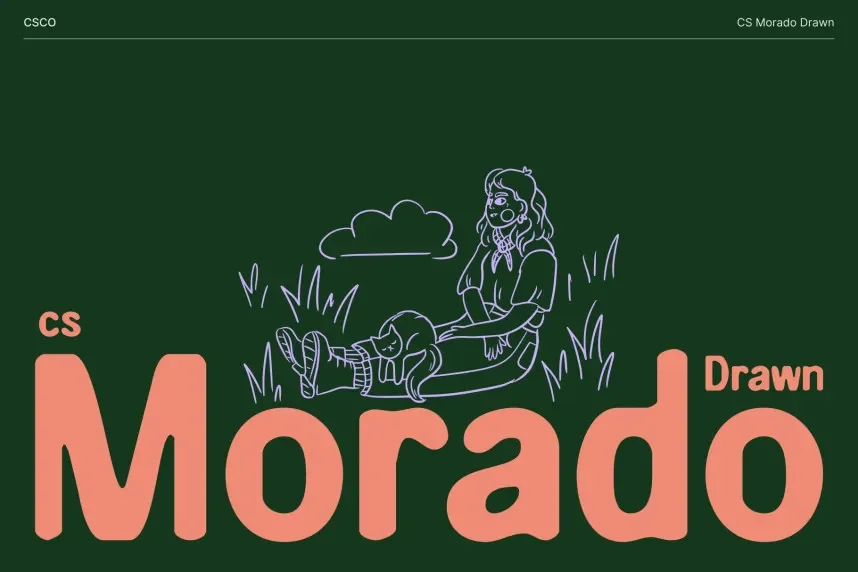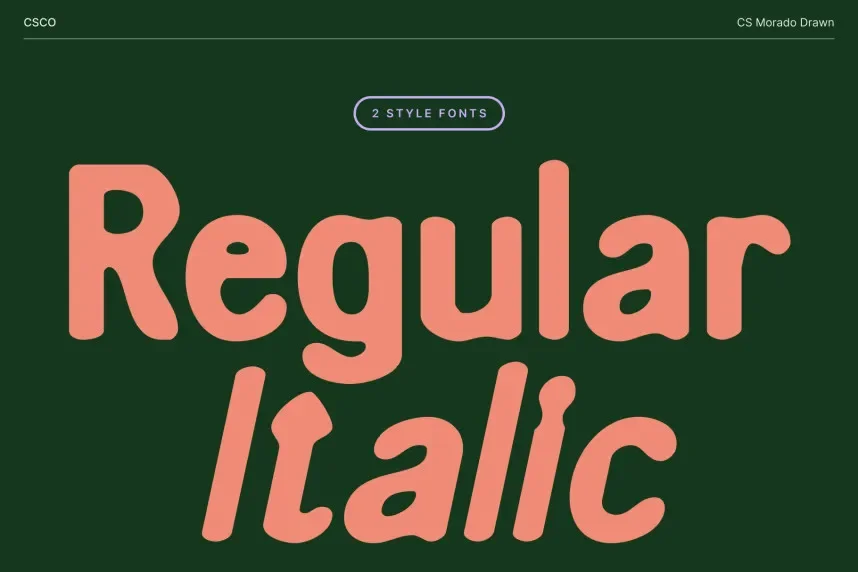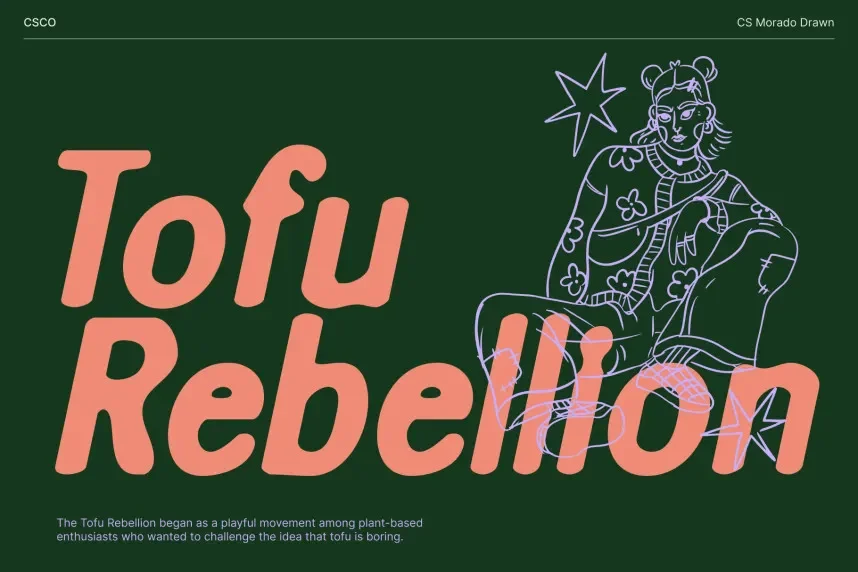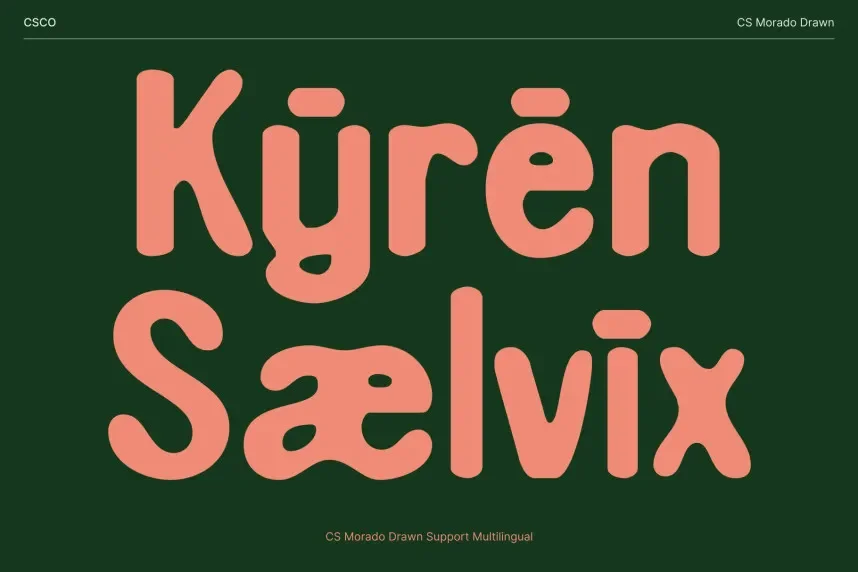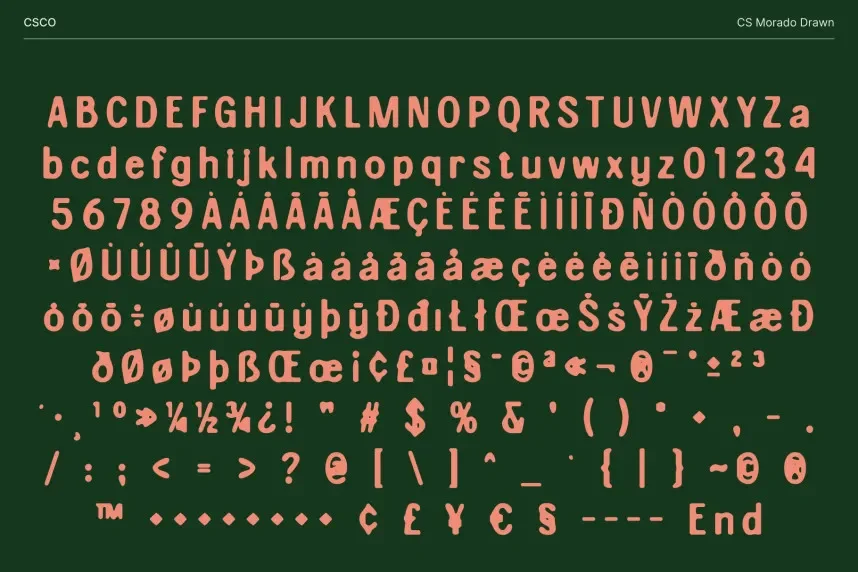
CS Morado Drawn Font addresses the need for a bold, distinctive font that makes a strong visual impression. It is ideal for designs that require attention-grabbing typography with a hand-drawn feel.
CS Morado is a display font featuring bold, thick strokes and uneven letterforms that create a rough, dynamic look. The font stands out in larger text and ensures your message is heard without sacrificing legibility.